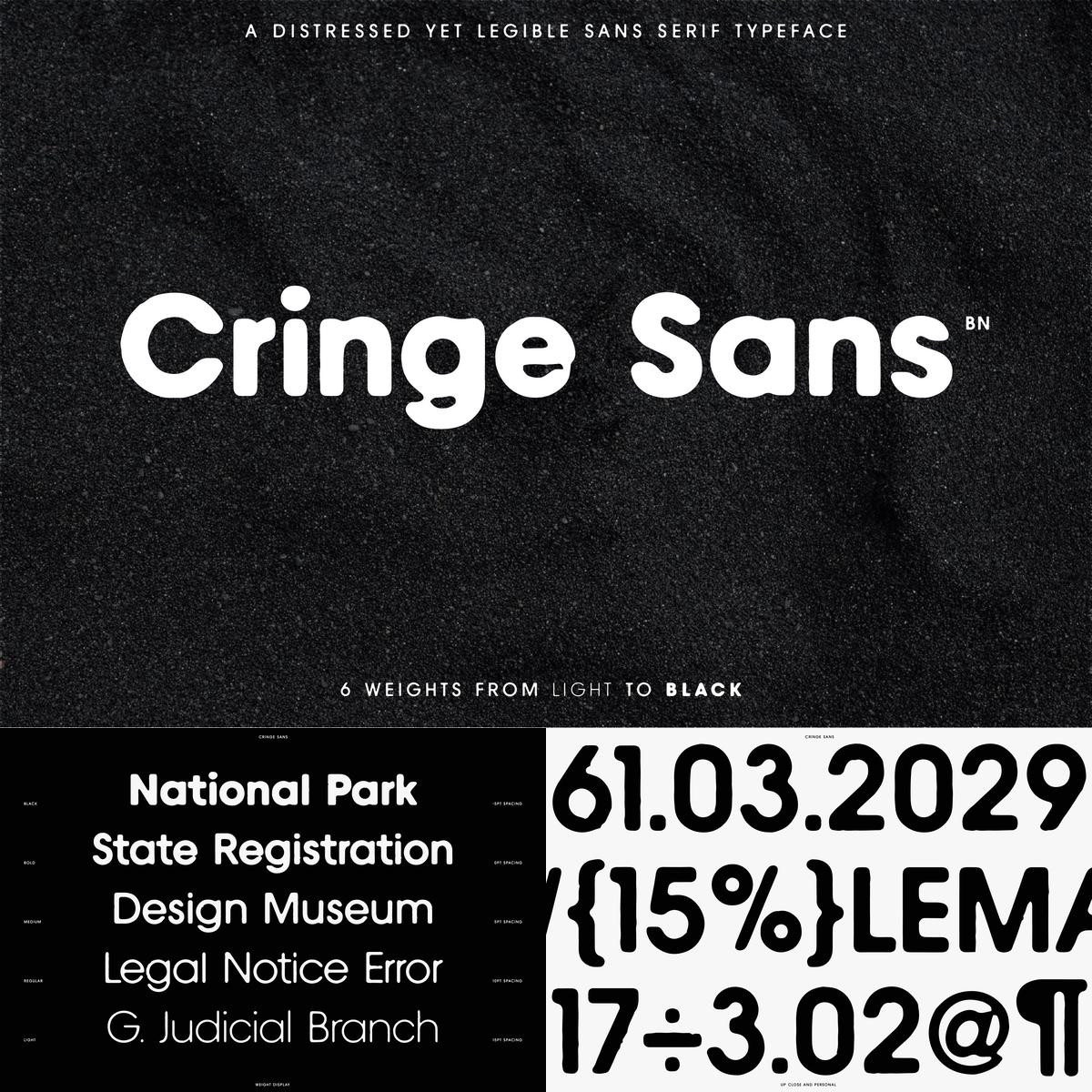
Download Cringe Sans - A Distressed Typeface
**Introducing Cringe Sans** A distressed typeface design for legibility and to give your brand/design a unique look and feel!